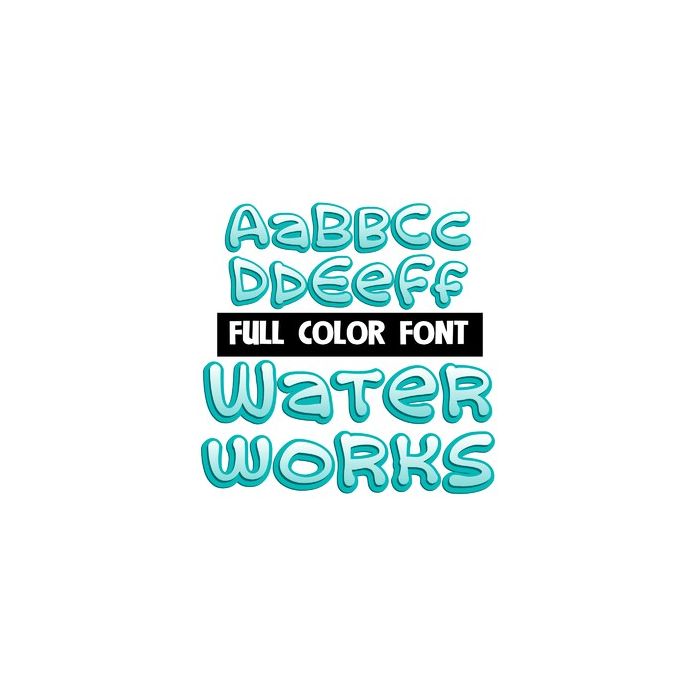
This full-color font is in aqua-water-like colors. This font works best for titles, displays, posters and more. Please note color fonts will show as black in non compatible programs. This font type is compatible with Silhouette Studio.